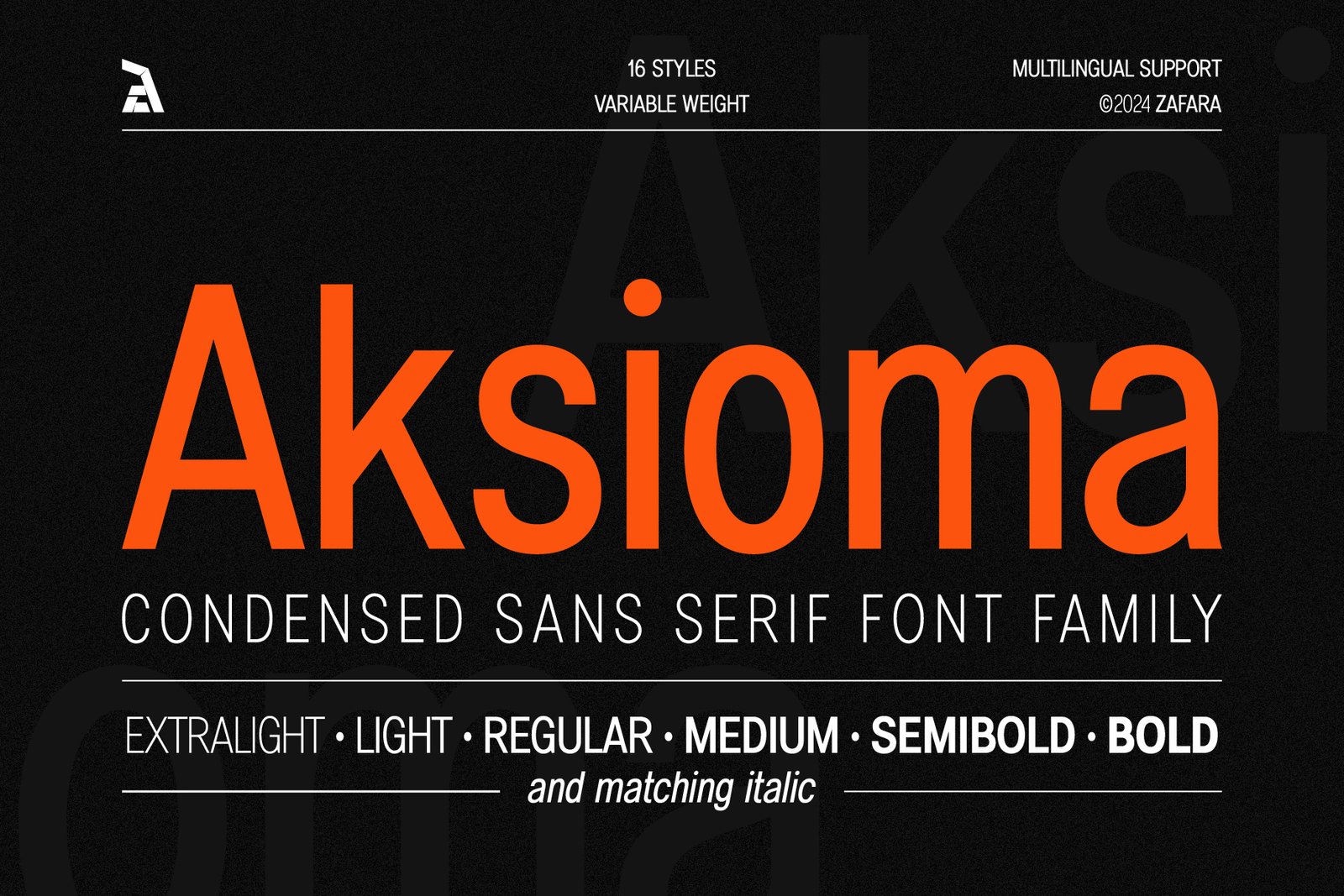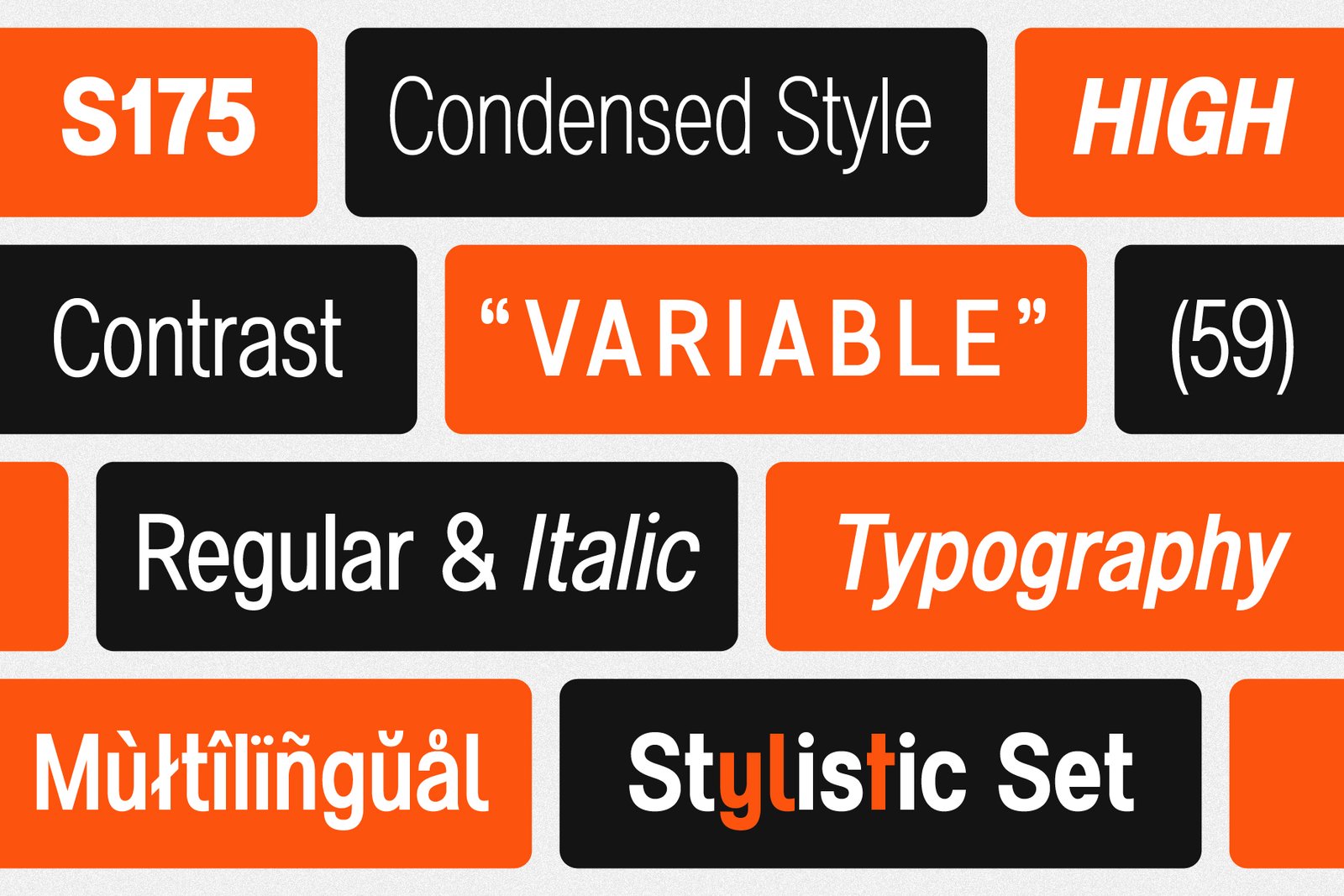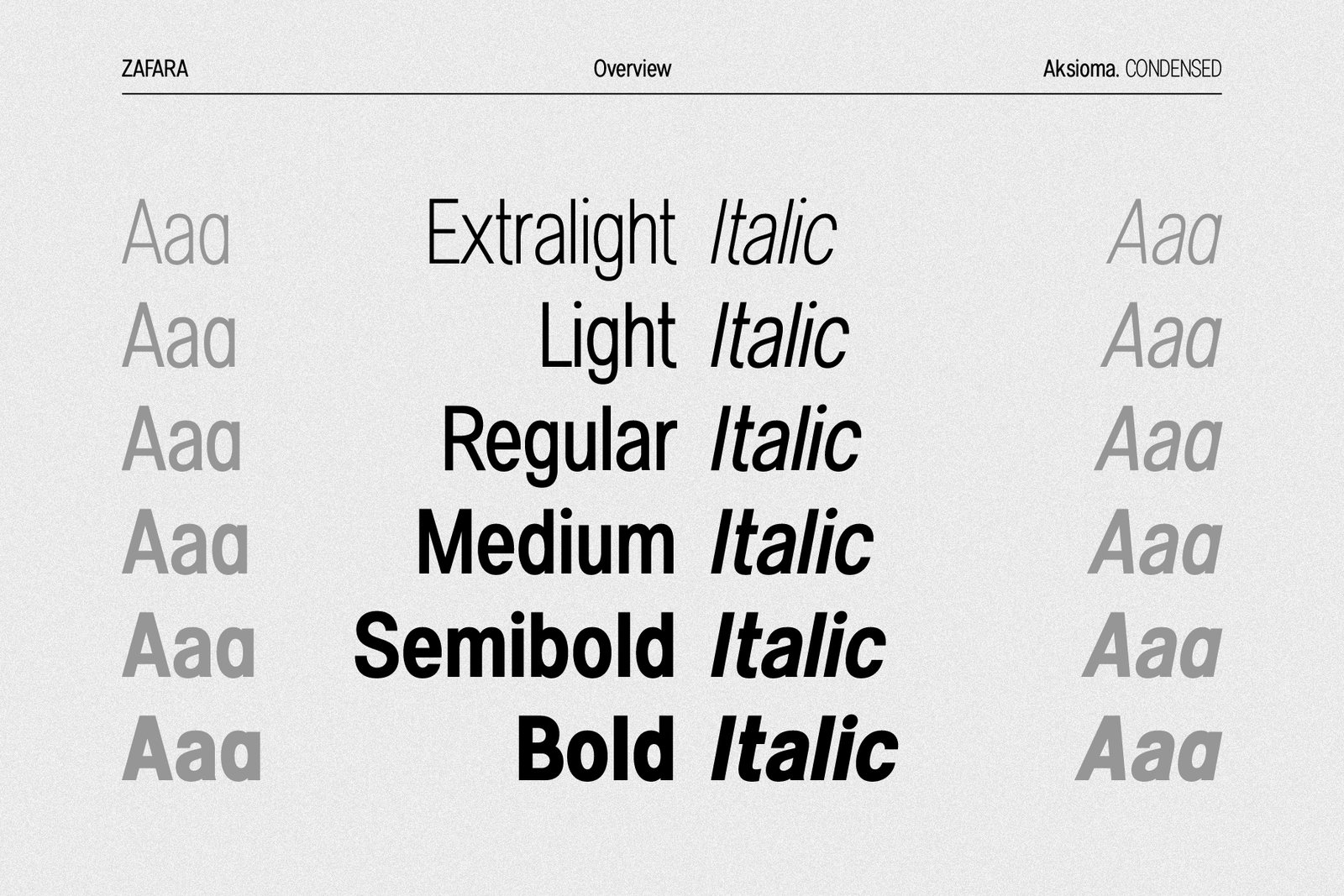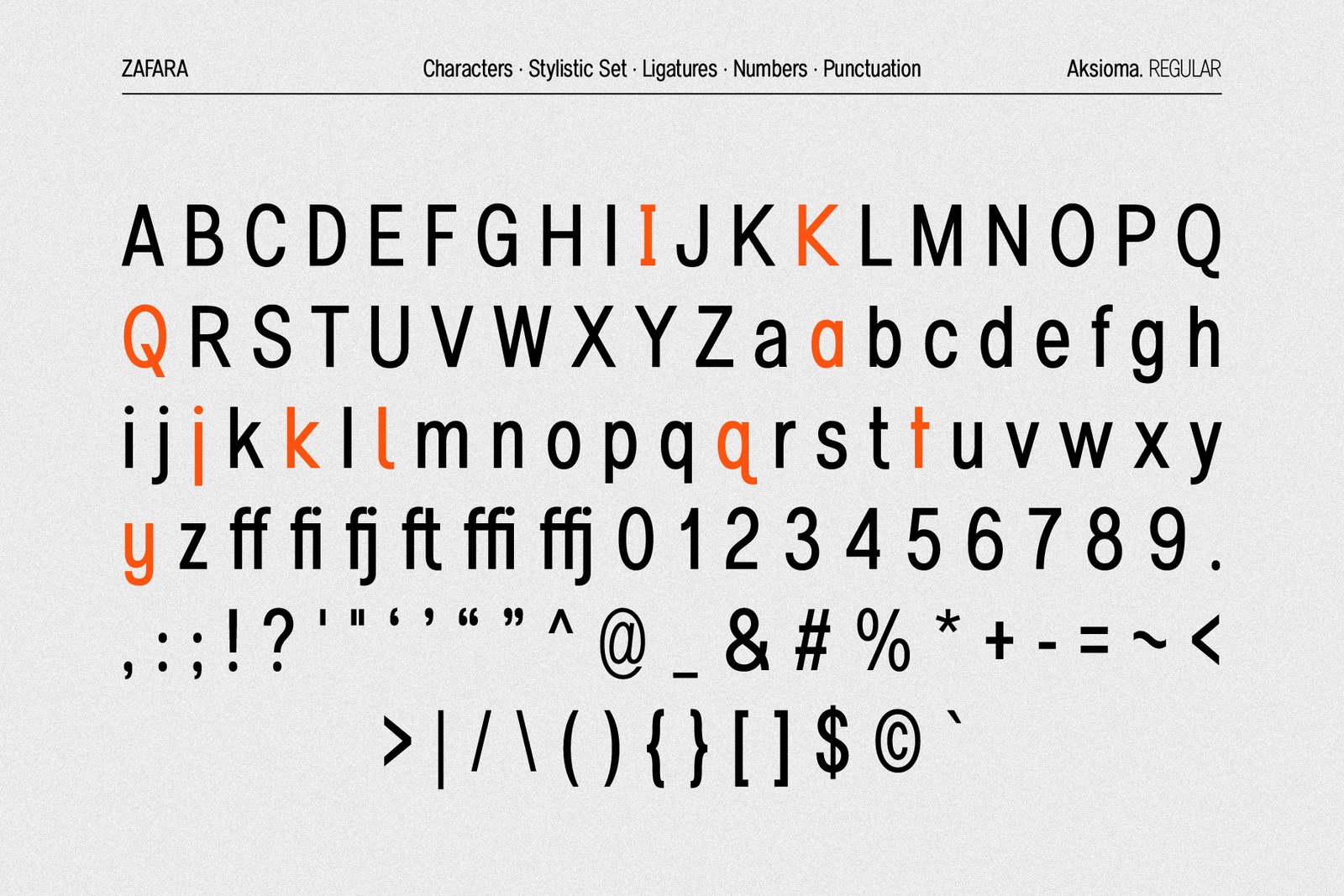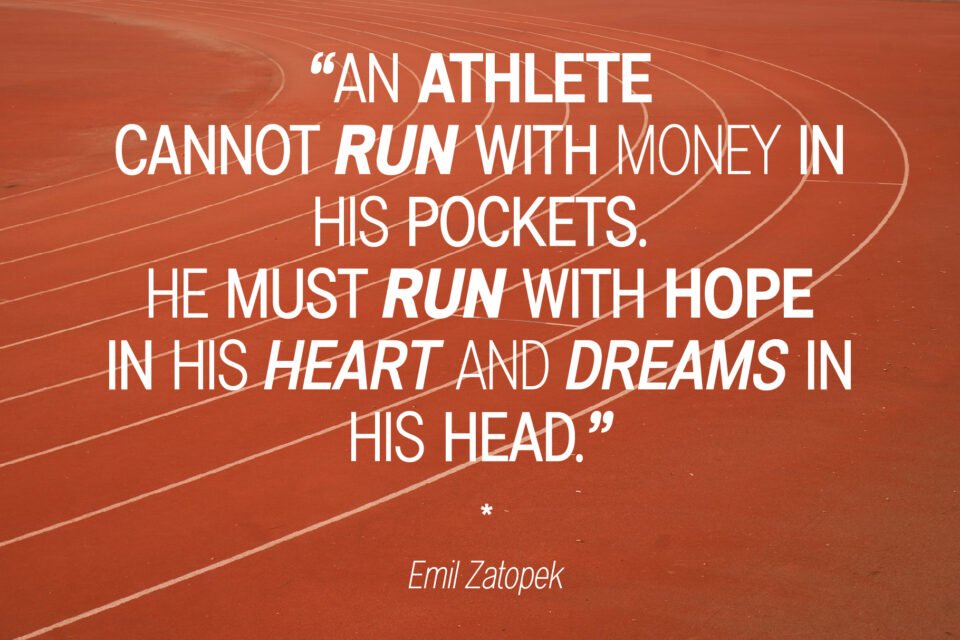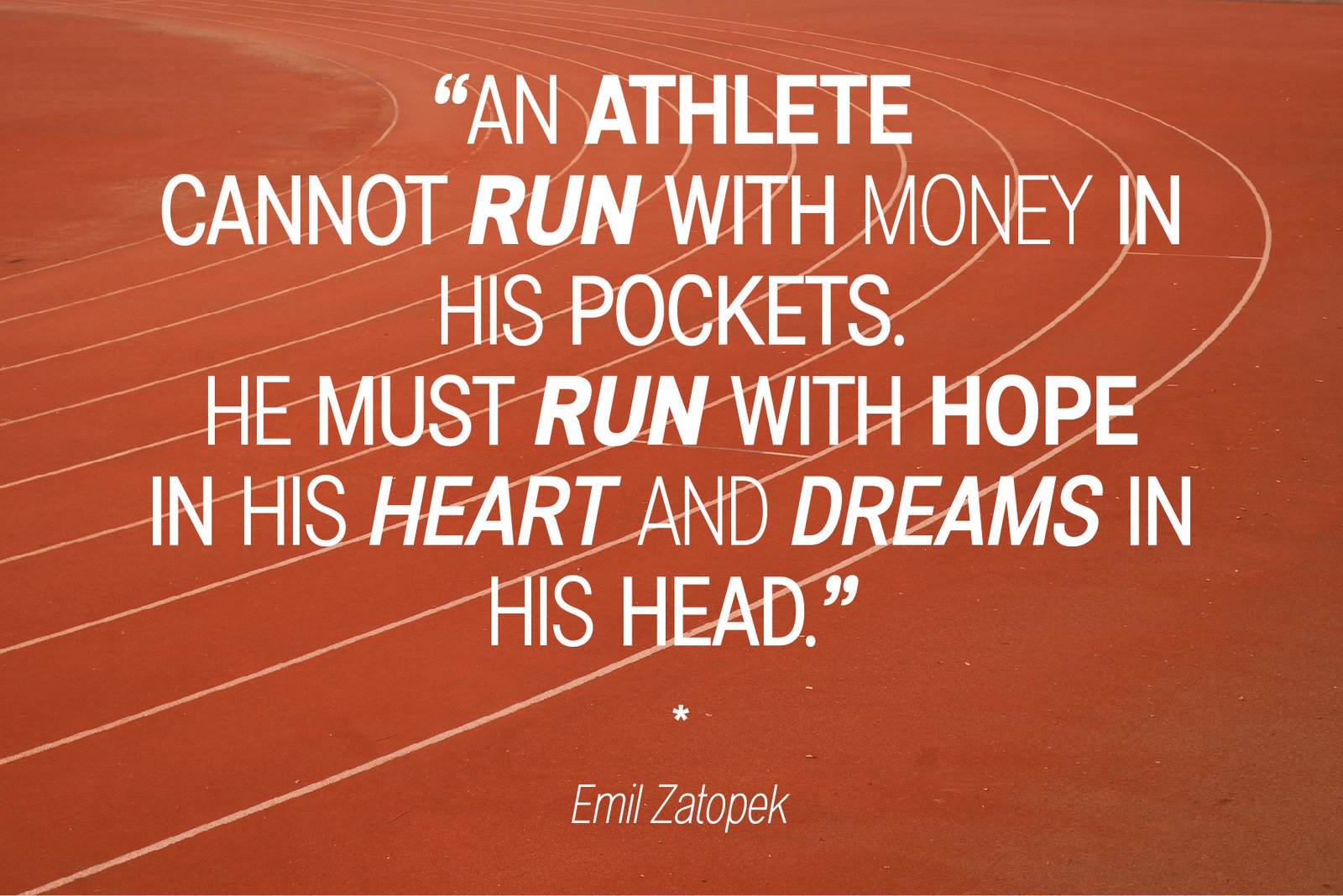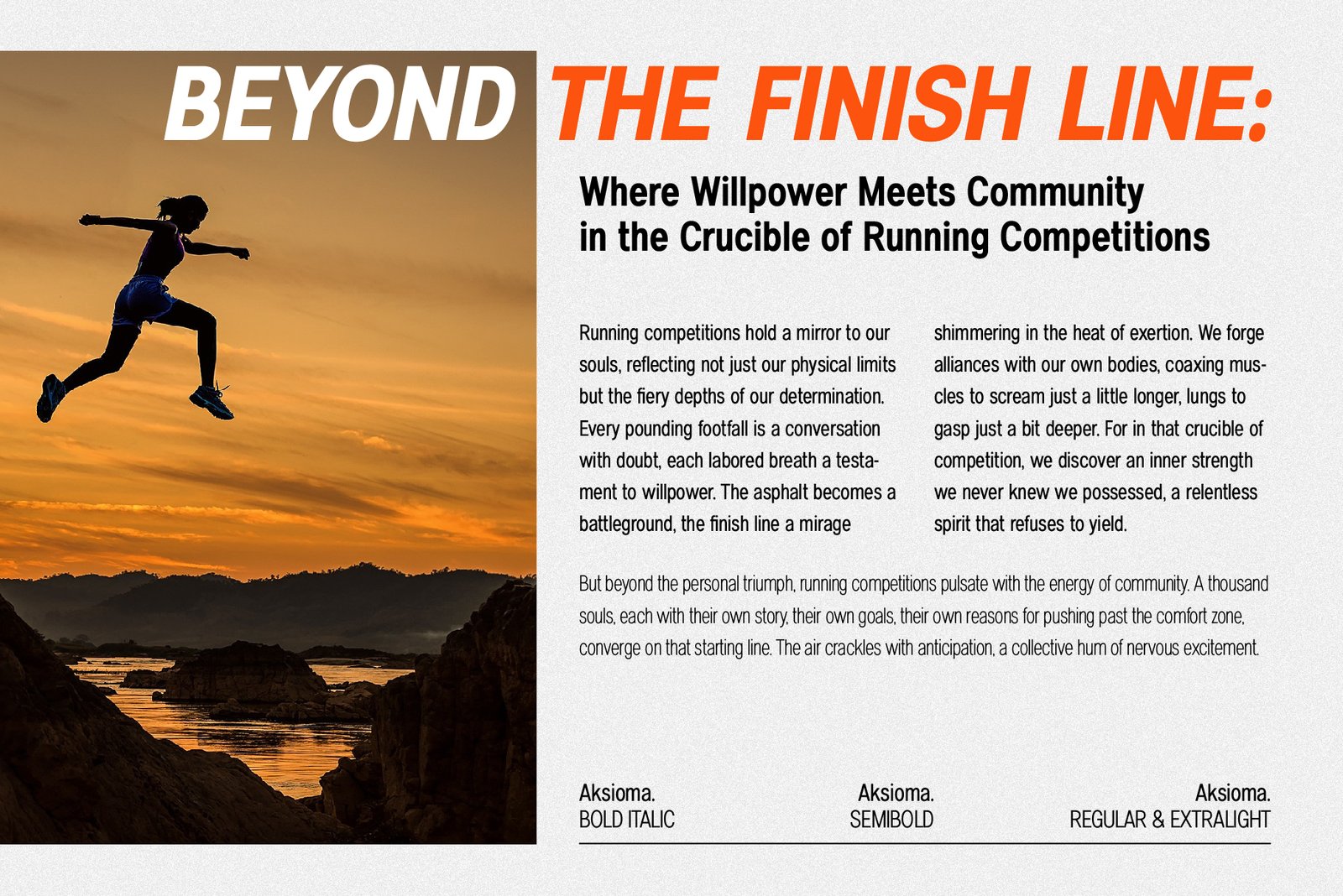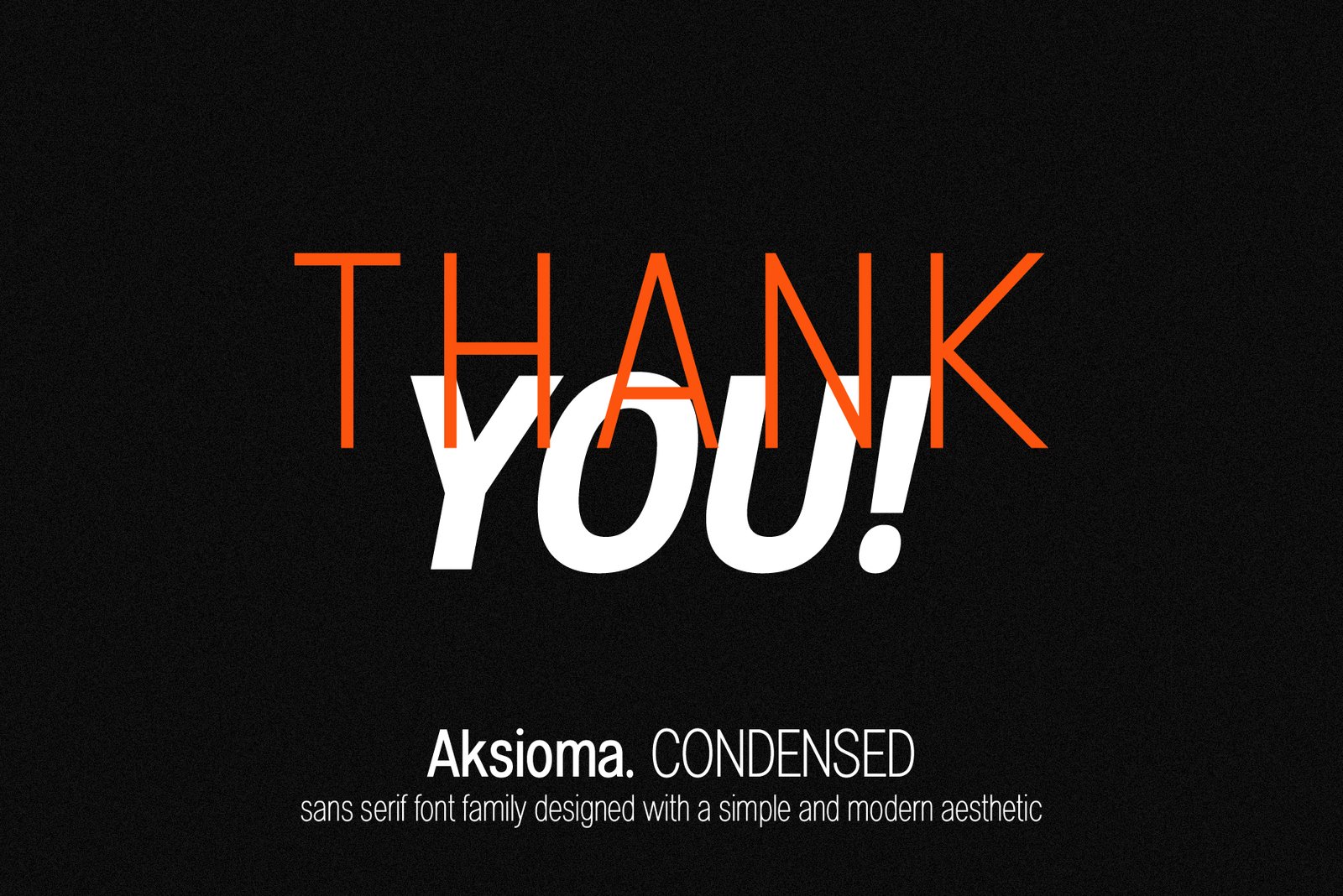
The Aksioma Condensed Sans Serif Font Family logo in bright orange against a black background, with a list of its 16 styles and variable weight.
A collage of orange and black blocks with key features of the Aksioma font family, including "Condensed Style," "High Contrast," "Multilingual," and "Regular & Italic."
A side-by-side comparison of different Aksioma font weights, from Extralight to Bold, along with their matching italic versions.
A full character set display for the Aksioma font, including uppercase and lowercase letters, numbers, punctuation, and ligatures.
A quote from Emil Zatopek, "An athlete cannot run with money in his pockets..." displayed in a mix of bold and italic Aksioma font on a running track background.
A woman running with a dramatic sunset background, featuring the Aksioma font in bold title and body text about willpower and community in running.
A dynamic, diagonal text layout using the Aksioma font in orange against a black background, with a quote about perseverance and inner strength.
The words "THANK YOU!" in a bold, dynamic layout using the Aksioma font, with a simple and modern aesthetic.
The Aksioma Condensed Sans Serif Font Family logo in bright orange against a black background, with a list of its 16 styles and variable weight.
A collage of orange and black blocks with key features of the Aksioma font family, including "Condensed Style," "High Contrast," "Multilingual," and "Regular & Italic."
A side-by-side comparison of different Aksioma font weights, from Extralight to Bold, along with their matching italic versions.
A full character set display for the Aksioma font, including uppercase and lowercase letters, numbers, punctuation, and ligatures.
A quote from Emil Zatopek, "An athlete cannot run with money in his pockets..." displayed in a mix of bold and italic Aksioma font on a running track background.
A woman running with a dramatic sunset background, featuring the Aksioma font in bold title and body text about willpower and community in running.
A dynamic, diagonal text layout using the Aksioma font in orange against a black background, with a quote about perseverance and inner strength.
The words "THANK YOU!" in a bold, dynamic layout using the Aksioma font, with a simple and modern aesthetic.
Aksioma is a condensed sans serif font family designed with a simple and modern aesthetic. This exceptional condensed sans serif typeface is crafted for versatile use, offering practical space-saving benefits and a distinctive visual impact. In general, it is often used for titles for posters, book covers, websites, brochures, business cards, and logos, making it an excellent display font that enhances the visual appeal of your designs.
The Aksioma font family is a great choice for a variety of design projects. It is easy to read at a variety of sizes, and it has a clean, modern look that can be used to create a variety of effects. Its characteristics make it a powerful display font solution for eye-catching typography.
• 212 glyphs: uppercase, lowercase, ligatures, multilingual, numbers, punctuation
• 6 weights: extralight, light, regular, medium, semibold, bold
• 6 italics
Aksioma – Condensed sans serif
Aksioma is a condensed sans serif font family designed with a simple and modern aesthetic. Overall, the font is designed for versatile use and offers practical space-saving benefits and distinctive visual impact.